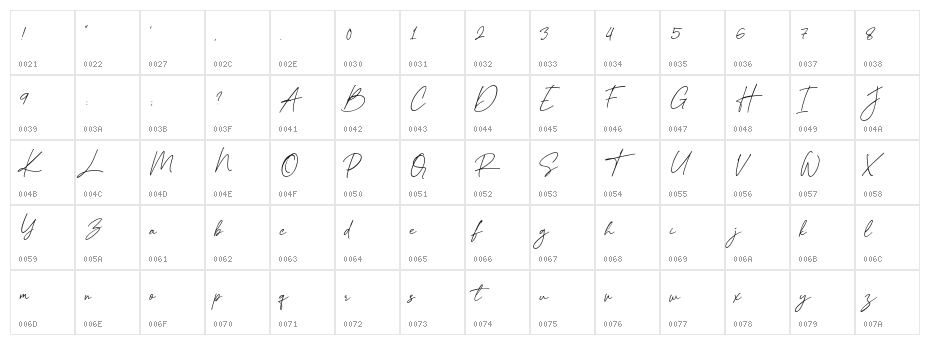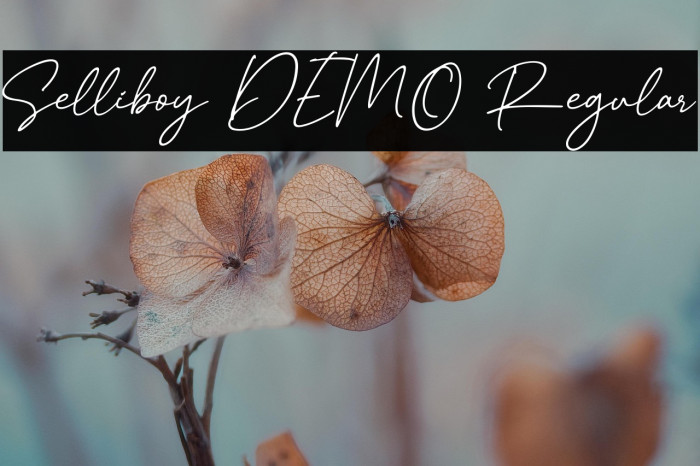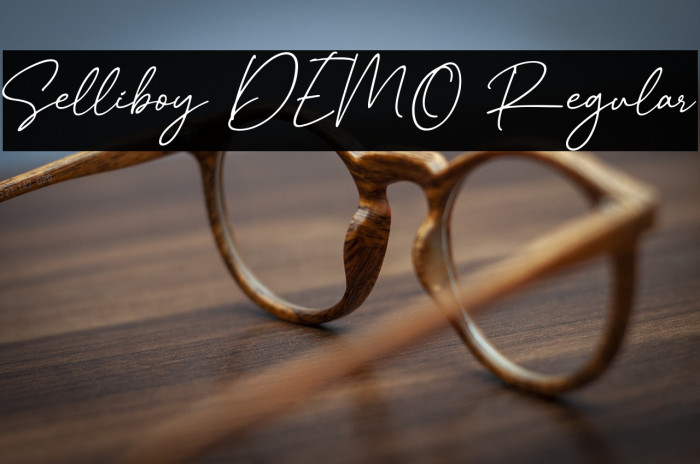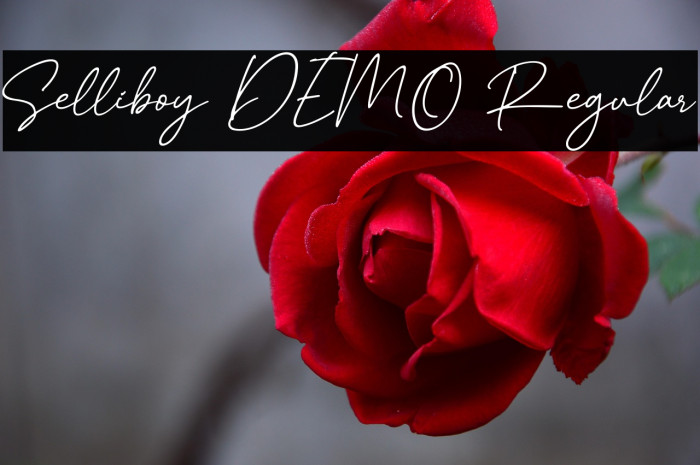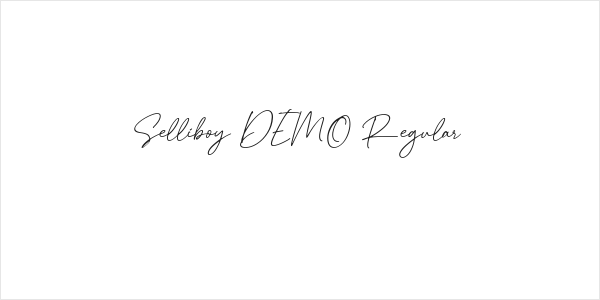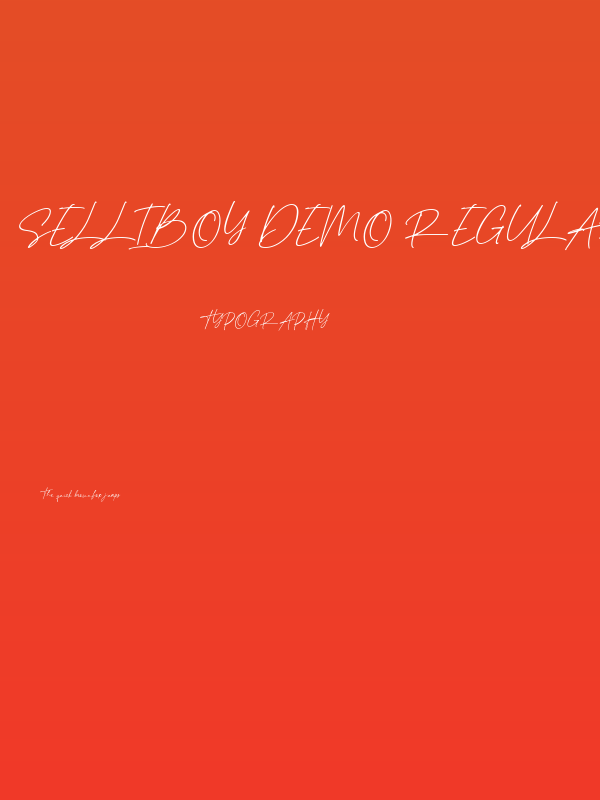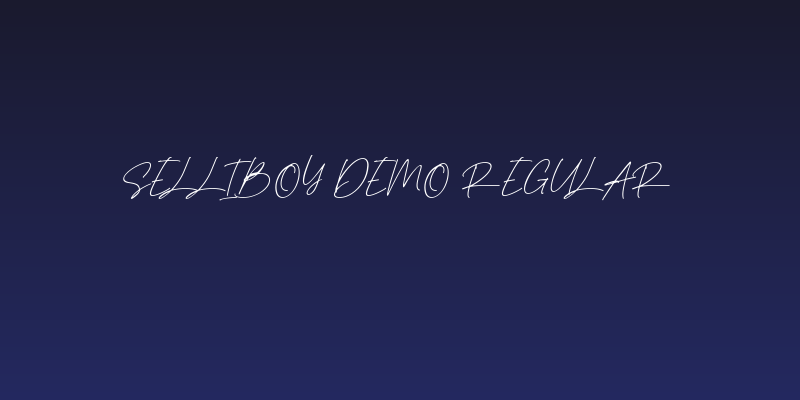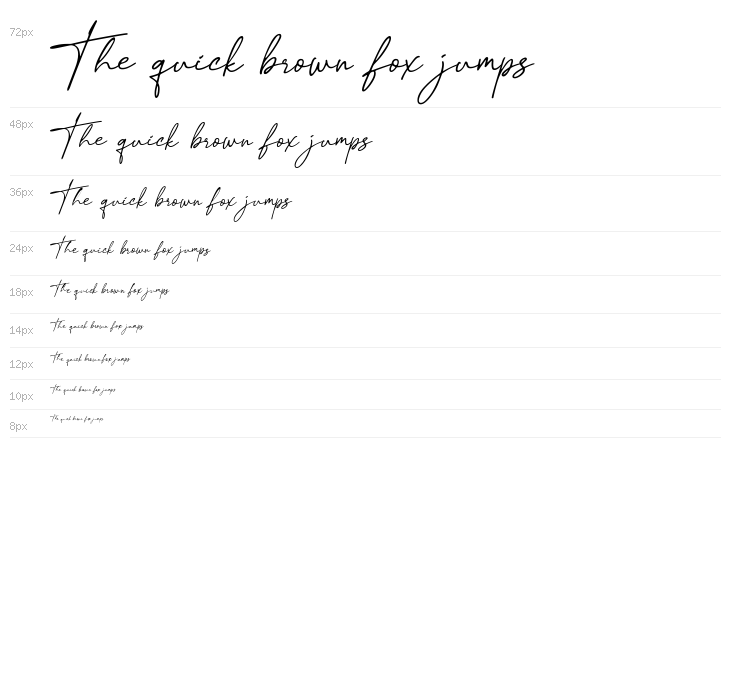
Selliboy DEMO Regular Font
Selliboy DEMO Regular Description
This font features a fluid, handwritten style that exudes elegance and a personal touch. The characters are connected with smooth, flowing lines, giving it a natural and organic appearance. The uppercase letters are slightly more elaborate, with extended strokes that add a touch of sophistication. The lowercase letters maintain a consistent flow, enhancing readability while preserving the handwritten charm. The numerals and special characters are crafted to match the overall aesthetic, ensuring a cohesive look across all text. This font's delicate and airy design makes it ideal for projects that require a personal or artistic flair.
| Overall Style | Elegant, Artistic |
| Use Case | Logos, Invitations, Personal notes |
| Proposed Projects | Ideal for wedding invitations, personal branding, greeting cards, and artistic projects. |